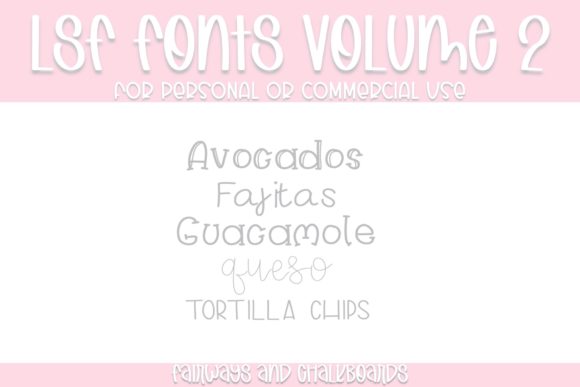
Introducing LSF Volume 2 - the ultimate font collection that will transform your creative designs into masterpieces. This captivating collection of 5 distinctive font styles offers unparalleled versatility, making it the perfect choice for a wide range of projects, from branding to handwritten quotes.
Each font in the LSF Volume 2 family has been meticulously crafted to evoke emotions and inspire creativity. Immerse yourself in the flowing beauty of "LSF Volume 2 Italic," where each letter dances across the page with effortless grace. Unleash the playful spirit of "LSF Volume 2 Oblique," adding a touch of whimsy to your designs. Embrace the raw and authentic charm of "LSF Volume 2 Handwritten," capturing the essence of handwritten notes in a digital realm.
Whether you envision a captivating brand logo, an unforgettable product packaging design, or an invitation that conveys heartfelt emotions, LSF Volume 2 has the perfect font to match your vision. With its diverse range of styles, you can create stunning designs that resonate with your audience, leaving a lasting impression.
Join the creative revolution with LSF Volume 2 Font Collection. Let your imagination soar as you explore endless design possibilities, transforming your projects from ordinary to extraordinary. Embrace the power of fonts to communicate your message with style, passion, and creativity. Make LSF Volume 2 your go-to font collection for all your design endeavors, and watch as your creations blossom with captivating charm.